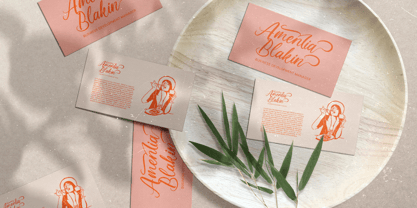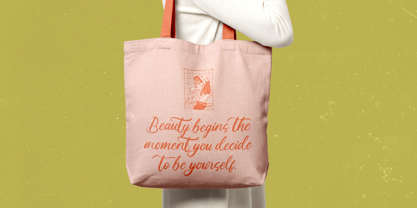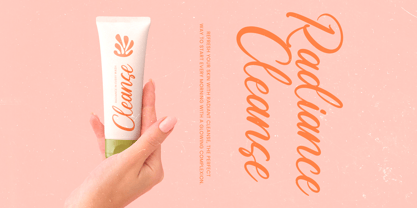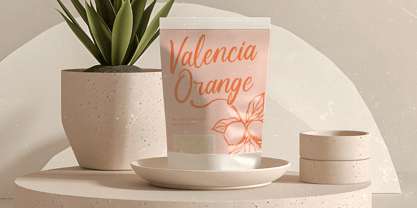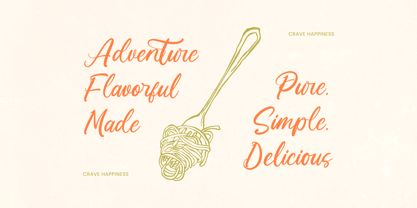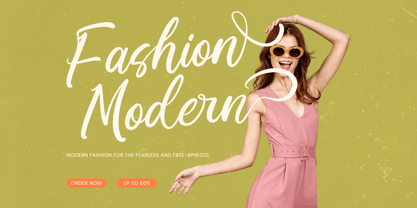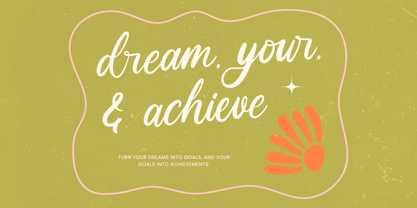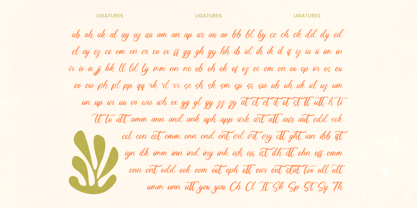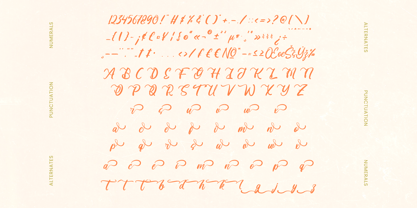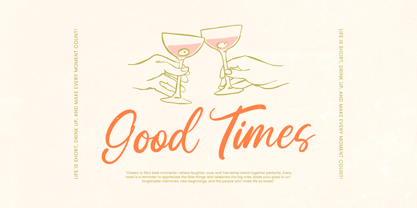
Make Unique
La familia tipográfica Make Unique fue diseñada por Heru Utama Putra y publicada por Letterena Studios. Make Unique contiene 2 estilos y opciones de paquete familiar. Más información sobre esta familia
Make Unique is a bold calligraphy script designed with expressive curves, smooth handwritten flow, and a friendly handcrafted personality, featuring 189 ligatures, 69 stylistic alternates, and 590 glyphs to give designers full creative flexibility. This font delivers a warm, modern, and approachable look ideal for branding, packaging, cafe menus, greeting cards, social media design, and lifestyle-themed visuals, offering a polished handwritten style that stands out with ease while remaining clean, legible, and professional for any creative project.